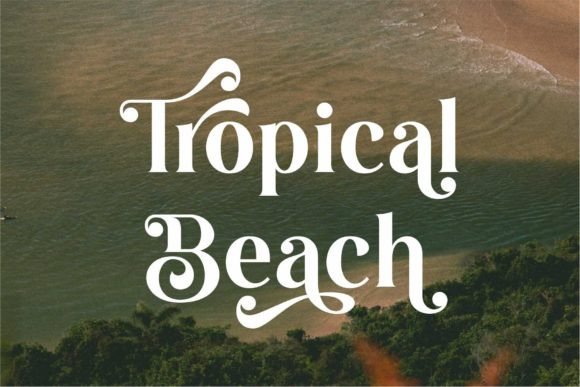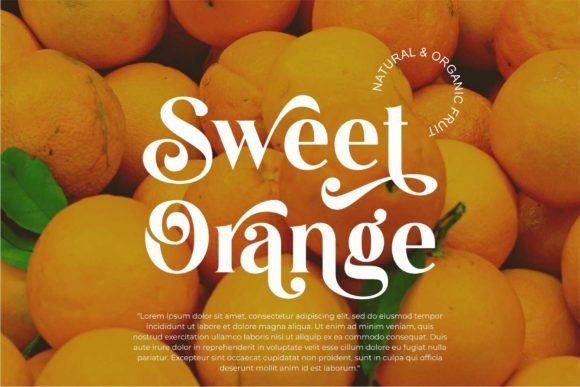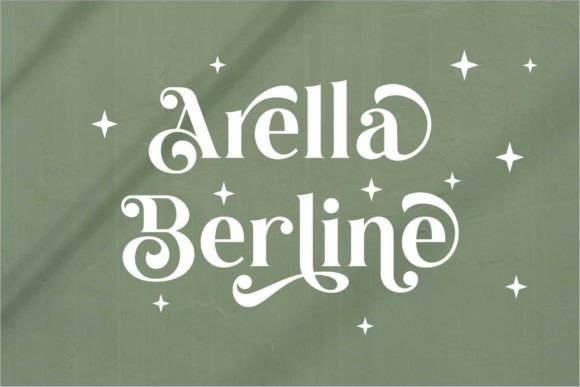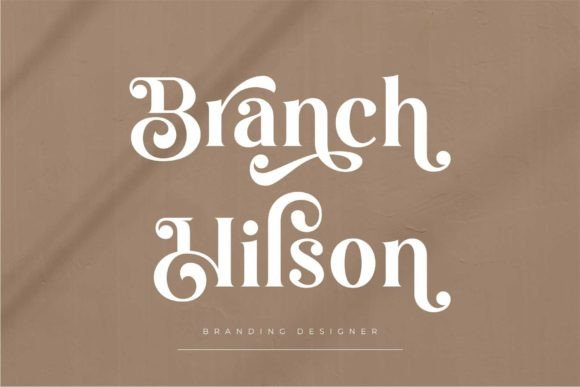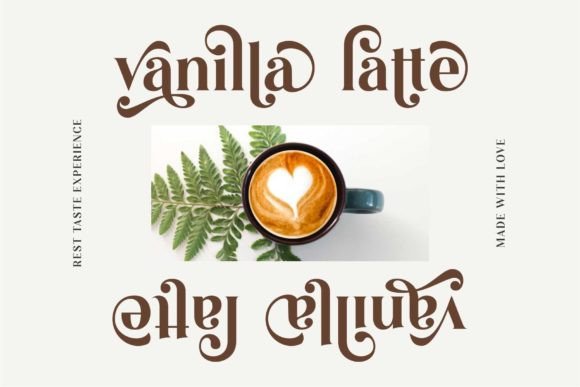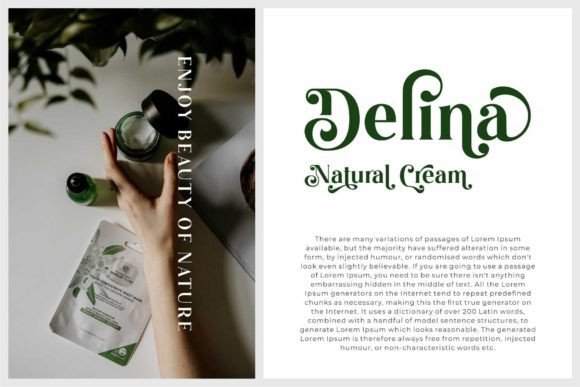
Breach Mango Stylish Retro Serif Font: Elevate Your Designs with a Touch of Minimalist Elegance
Are you on the hunt for a font that embodies the perfect blend of minimalism and sophistication? Look no further than the Breach Mango Stylish Retro Serif Font. Inspired by the iconic, simple logo designs that have become synonymous with luxury and elegance, this font is poised to revolutionize the way you approach your design projects. Whether you’re crafting templates, designing brochures, creating captivating videos, or developing branding and advertising materials, the Breach Mango font is your ideal companion.
The Essence of Breach Mango Font
The Breach Mango font is not just any ordinary typeface. Its roots lie in the minimalist design philosophy, which emphasizes simplicity and clean lines. This font, with its retro serif characteristics, brings back the nostalgic feel of classic typography while maintaining a modern edge that will make your designs stand out. The result is a sophisticated yet approachable aesthetic that can elevate a wide range of design applications, from logos and invitations to layout designs and beauty products.
PUA Encoding for Easy Access to Glyphs and Ligatures
One of the standout features of the Breach Mango font is its PUA (Private Use Area) encoding. This means that accessing the font’s extensive library of glyphs and ligatures is incredibly straightforward. Designers often face the challenge of finding fonts that offer both style and functionality. With PUA encoding, you can easily access all the special characters and ligatures, allowing for a seamless design experience. This feature is particularly beneficial for professionals who require a high level of customization in their work.
The versatility of the Breach Mango Stylish Retro Serif Font is one of its most compelling attributes. This font can be effectively used across a multitude of design projects, including:
- Template Design: Create stunning templates for websites, presentations, or social media that exude professionalism and style.
- Brochures and Flyers: Design eye-catching promotional materials that capture the essence of your brand or event.
- Video and Advertising: Enhance your video content and advertisements with a font that is both visually appealing and easy to read.
- Branding and Logos: Develop a strong brand identity with a logo that leverages the elegant and minimalist appeal of Breach Mango.
- Invitations and Events: Design beautiful invitations and event materials that convey sophistication and attention to detail.
- Layout Design: Use the font to create harmonious and engaging layouts for magazines, newspapers, or digital platforms.
- Elegant Crafting and Beauty Design: Perfect for crafting elegant product descriptions, packaging, and marketing materials for beauty and lifestyle brands.
Why Choose Breach Mango Font?
Choosing the Breach Mango font for your design projects comes with numerous benefits:
- Unique Aesthetic: Stand out with a font that combines retro charm with modern sophistication.
- High Readability: Ensure your message is conveyed clearly without compromising on style.
- Customization: With PUA encoding, customize your designs with ease, incorporating glyphs and ligatures to match your creative vision.
- Versatility: Apply the font across various design projects, from digital content to print materials.
In the world of design, typography plays a pivotal role in conveying messages and establishing brand identities. The Breach Mango Stylish Retro Serif Font offers a unique blend of minimalist elegance and versatility, making it an invaluable asset for designers and crafters. With its PUA encoding for easy access to glyphs and ligatures, and its suitability for a wide range of design applications, this font is poised to become a staple in your design toolkit. Elevate your designs with the touch of sophistication and charm that only the Breach Mango font can provide.